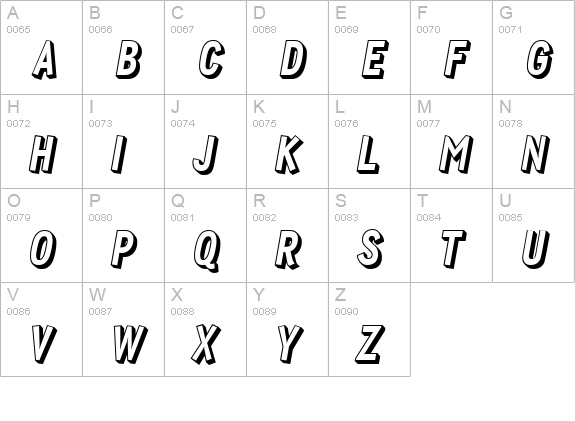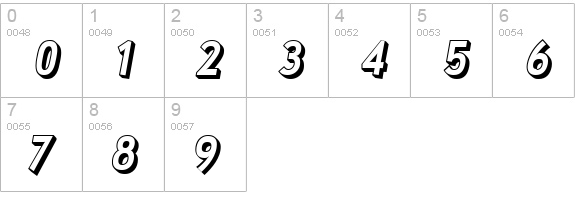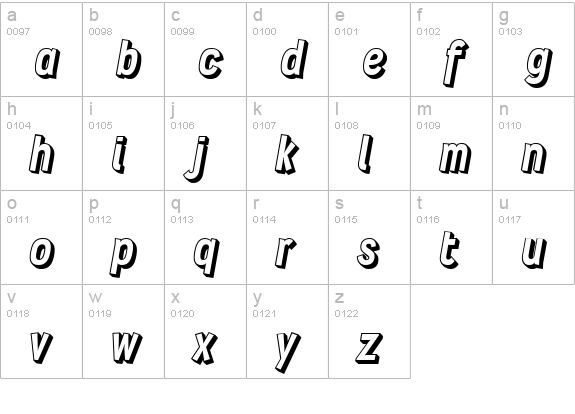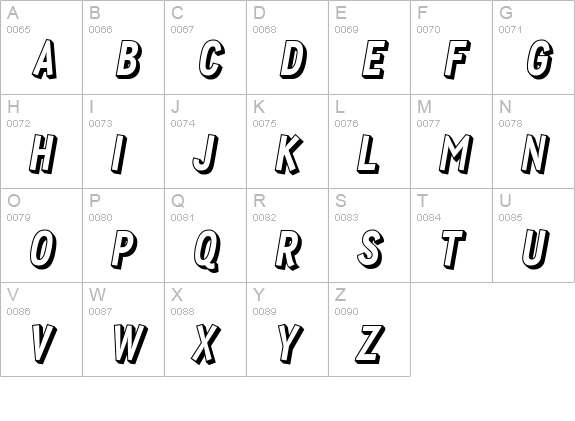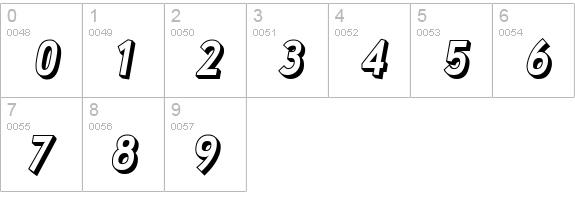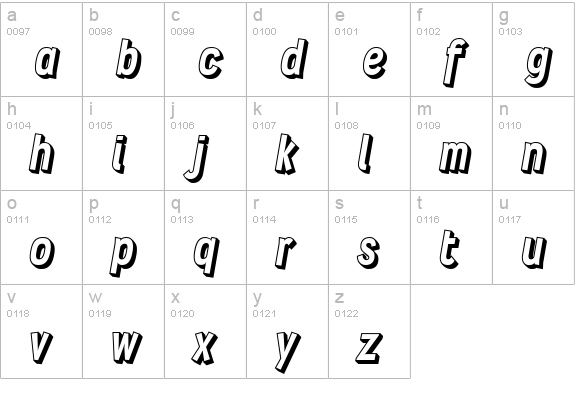
Wyvern Blocko Font Details
Wyvern Blocko font is a modern and stylish typeface that exudes creativity and originality. With its bold and eye-catching geometric design, this font is perfect for making a statement in your design projects. Whether you're working on a poster, logo, website, or any other creative endeavor, Wyvern Blocko font will help your work stand out. The best part? Wyvern Blocko font is available for free download at FontsMarket.com! This means you can easily access this unique and versatile font to enhance your designs without any cost. Don't miss out on the opportunity to add Wyvern Blocko font to your font library and elevate your projects with its contemporary charm.